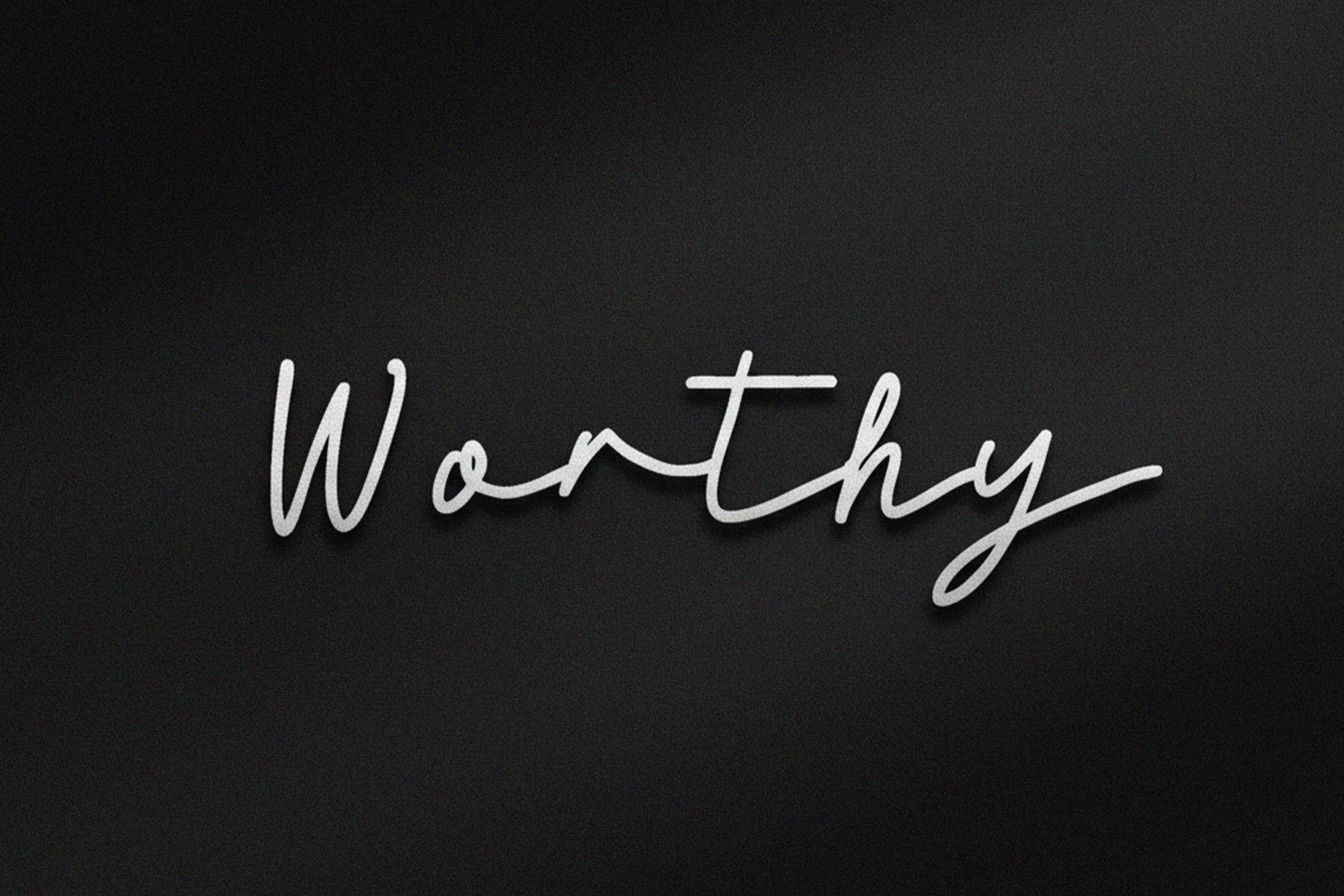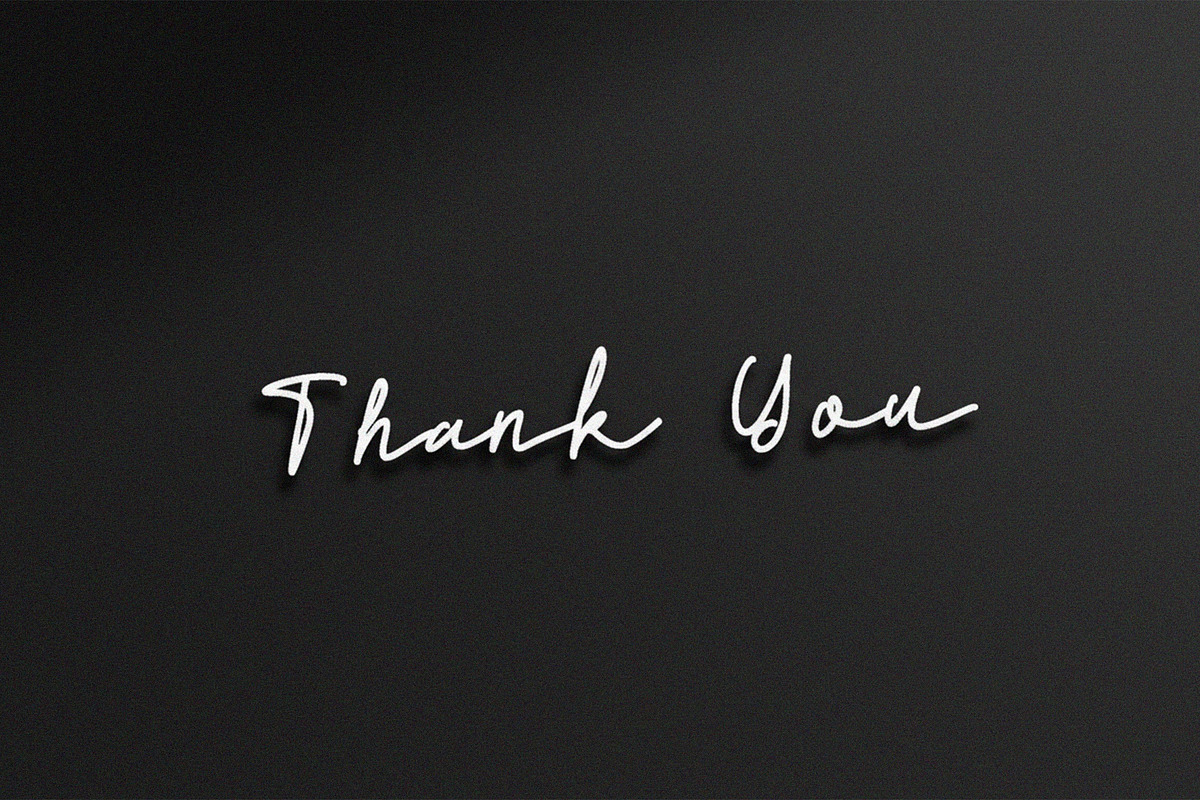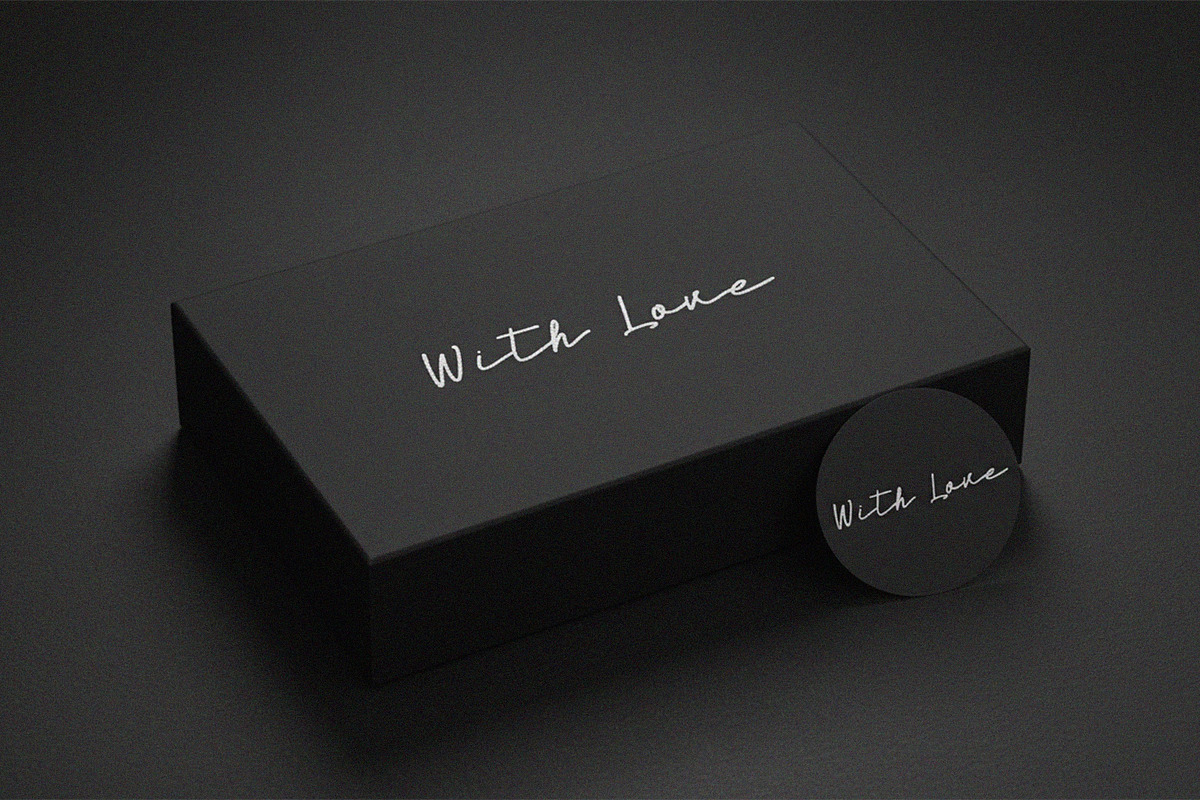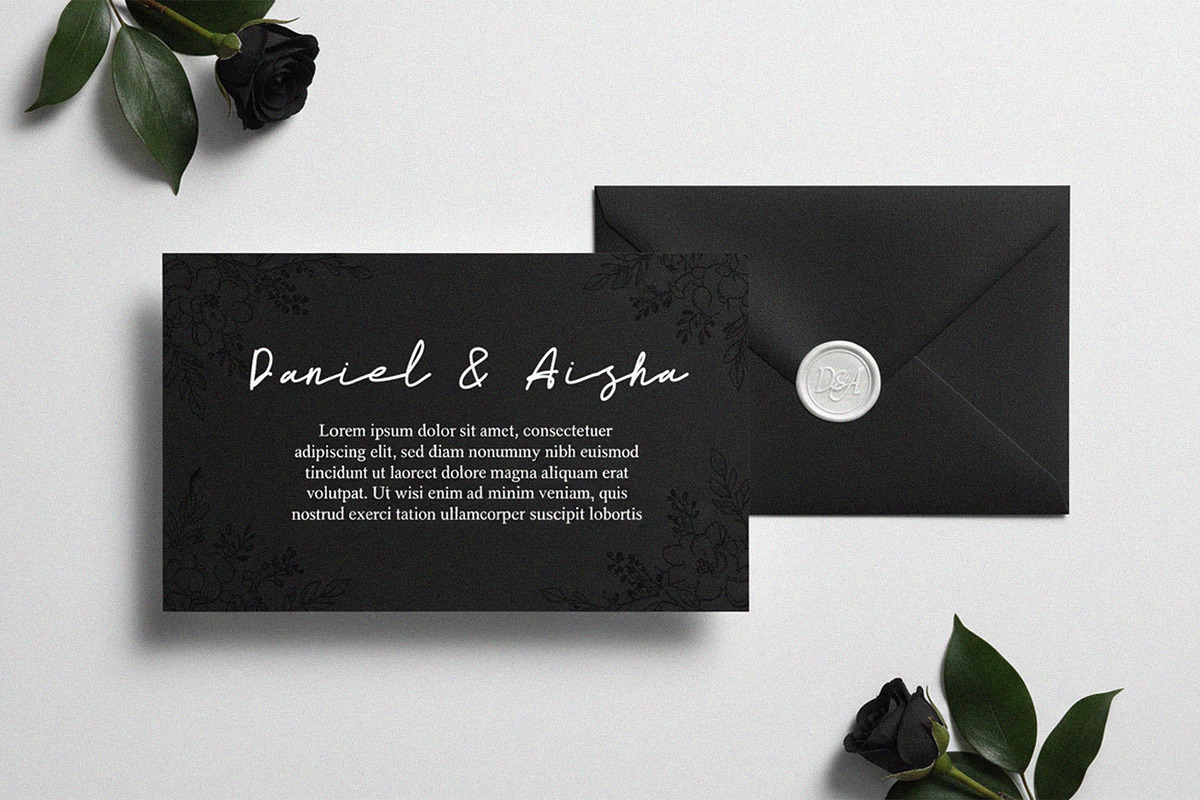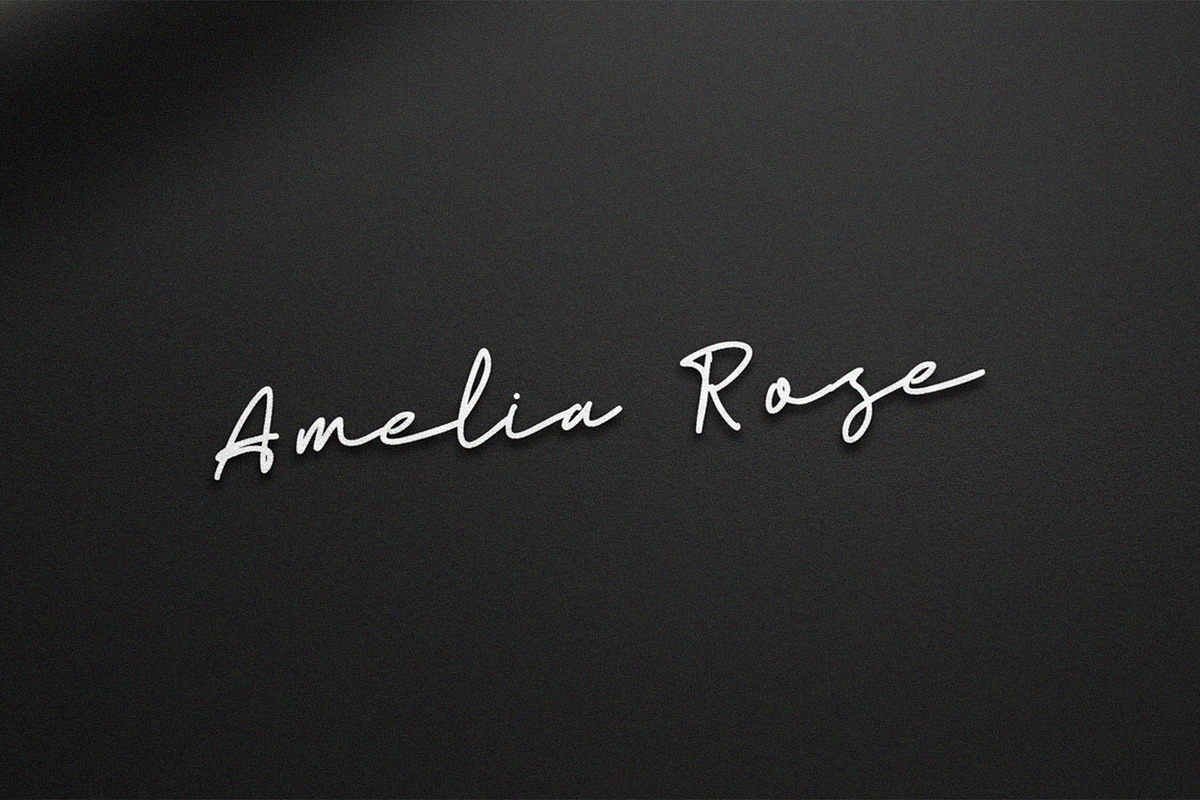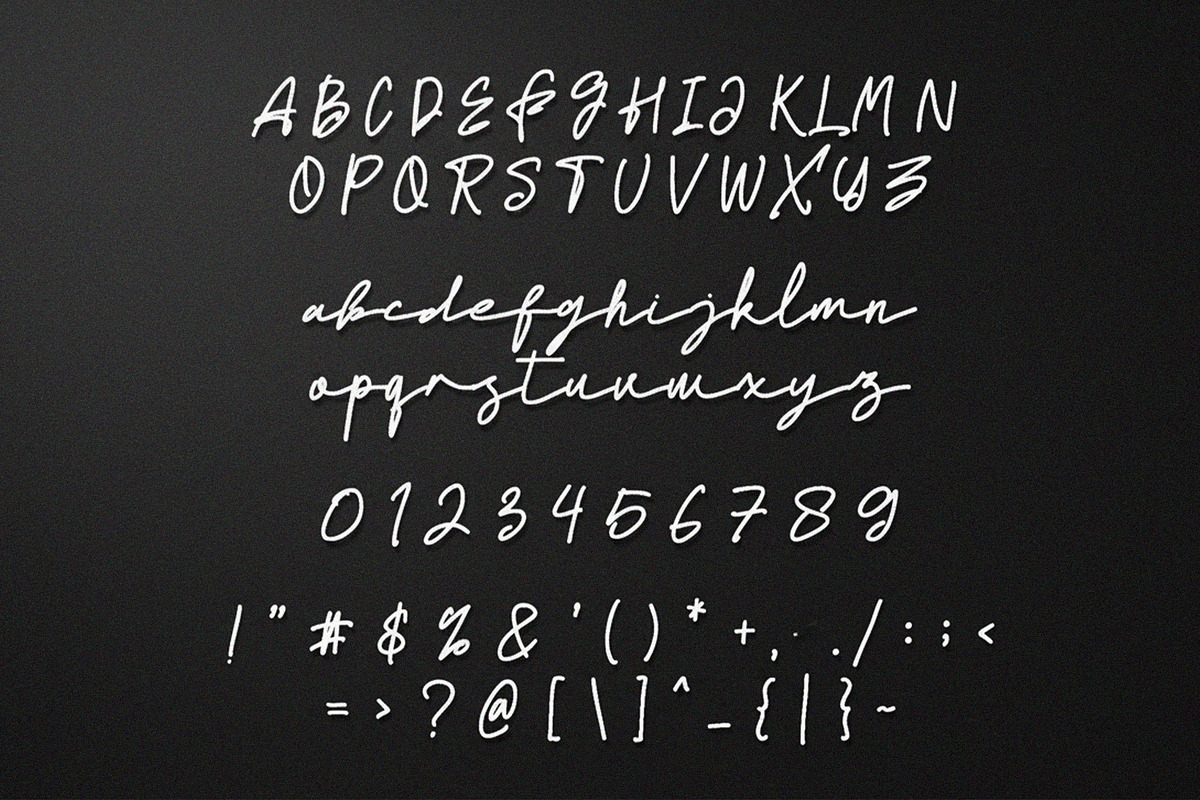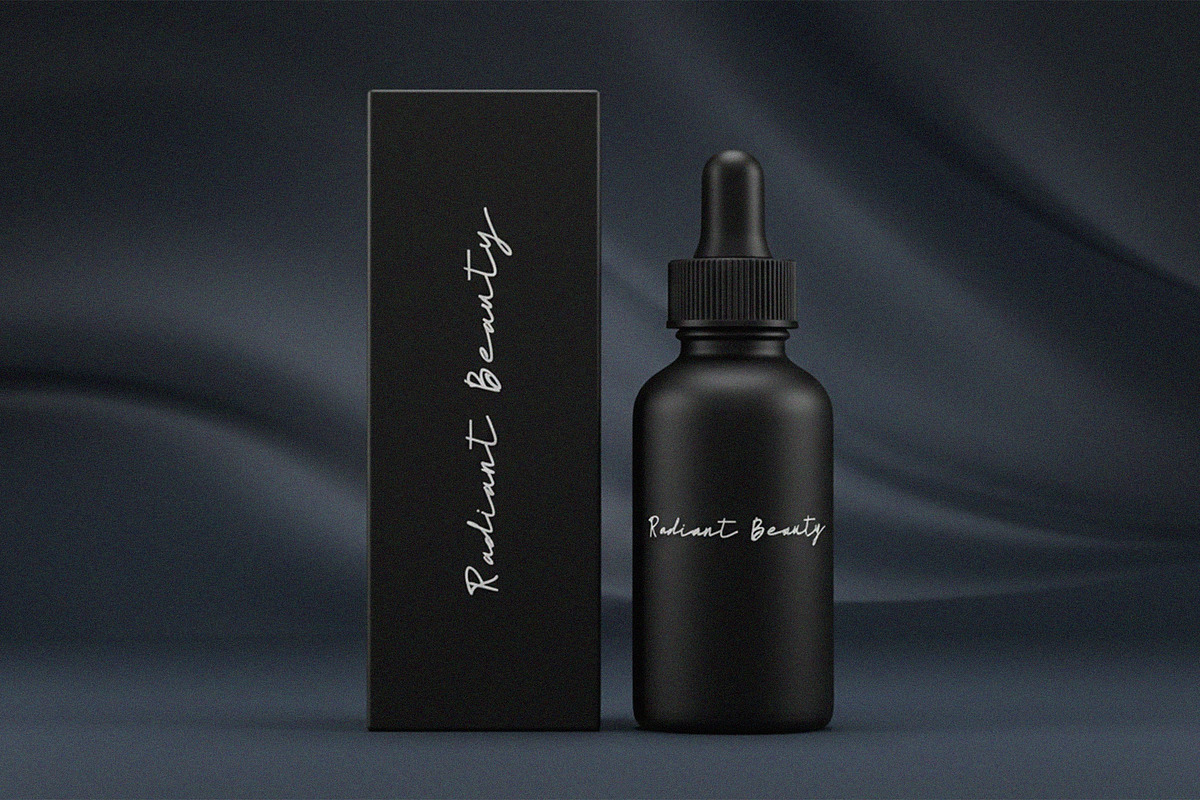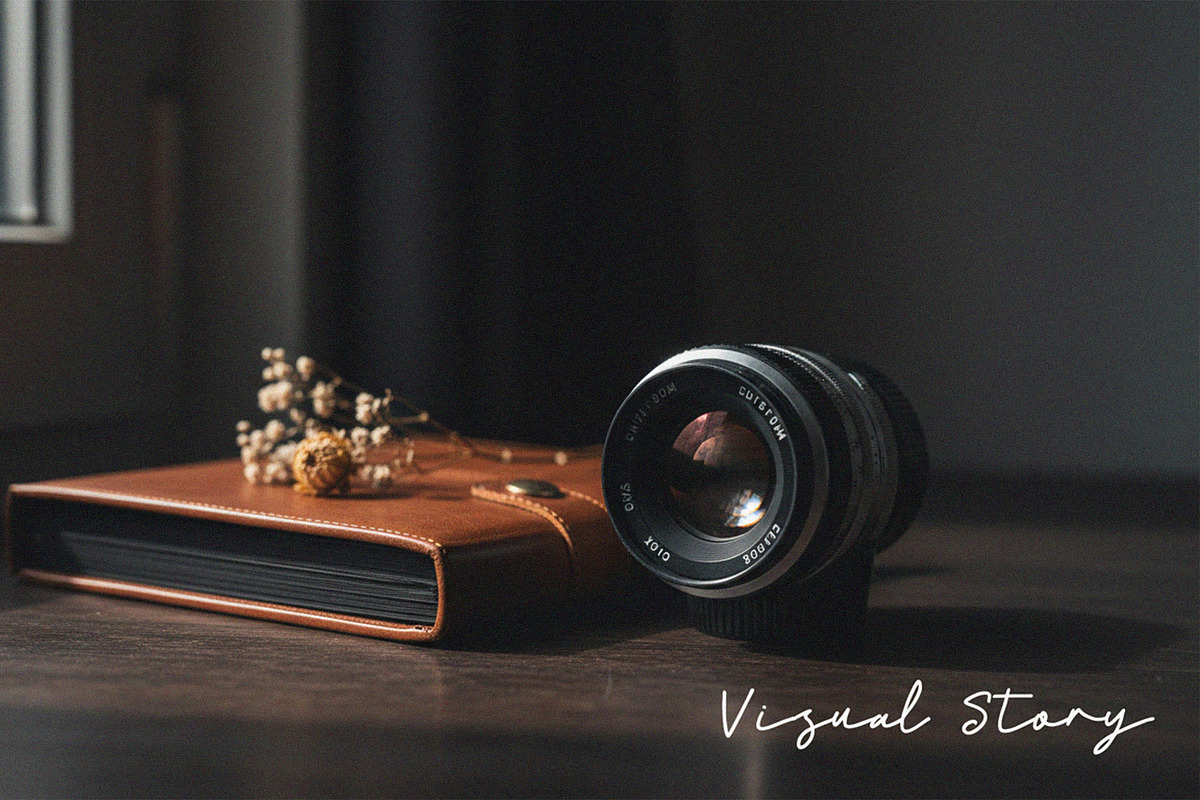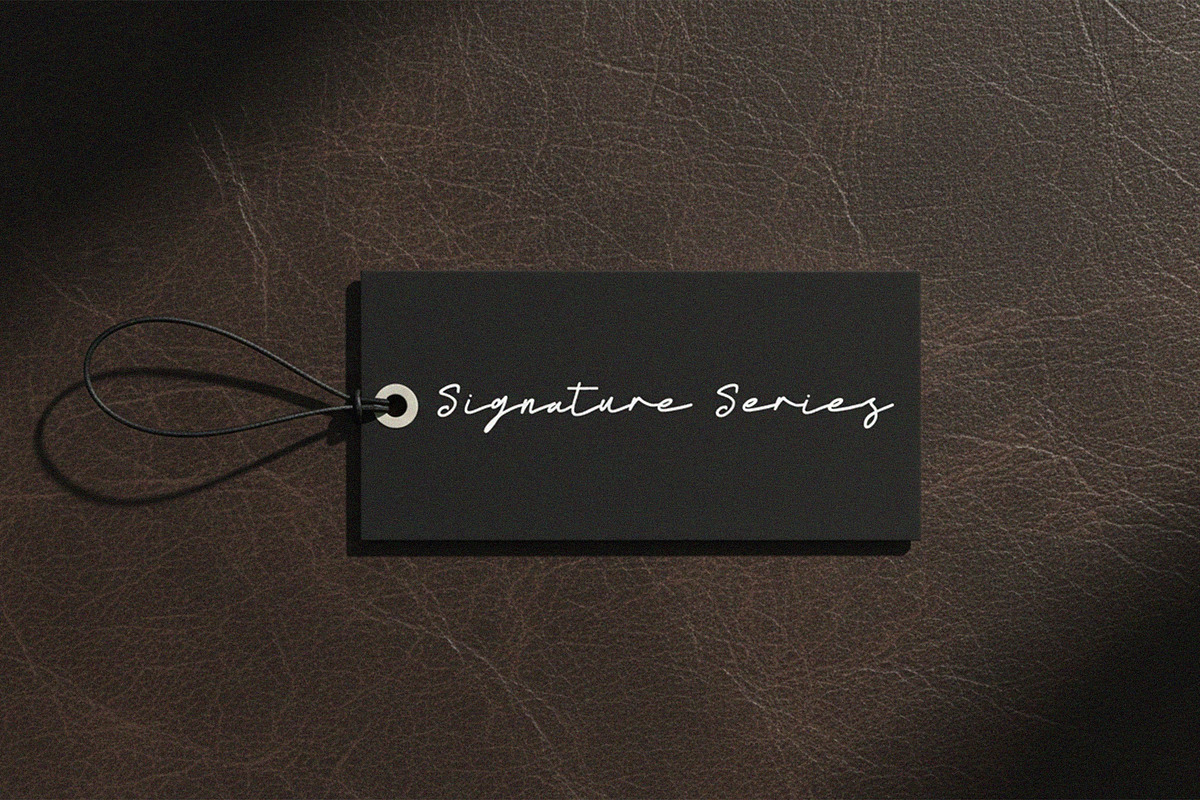
Worthy Monoline Signature Font
Worthy Monoline Signature Font is a refined and sophisticated typeface crafted to express elegance, confidence, and personal style. With its smooth monoline strokes and natural signature flow, Worthy is ideal for elegant logos, fashion branding, skincare products, signature logos, packaging, and premium visual identities. The clean yet expressive letterforms create a luxurious and professional impression, making your brand feel exclusive and trustworthy. Worthy balances simplicity with character, allowing it to stand out without overpowering your design. Whether used for high-end branding or personal signature marks, this font adds a polished, timeless touch to any creative project.